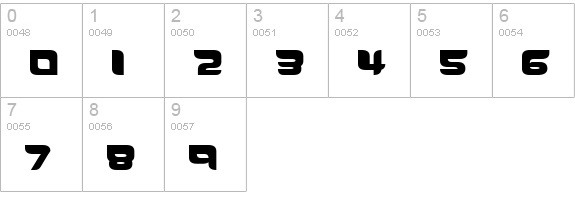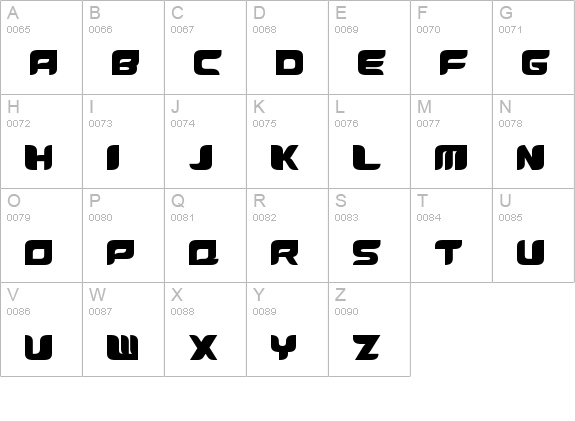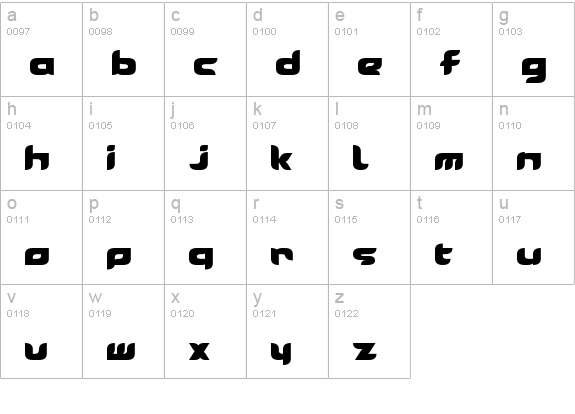
LEMON E font is a visually stunning and eye-catching typeface that adds a refreshing twist to any design project. With its sharp angles and bold lines, this font exudes a sense of modernity and sophistication. The letterforms are meticulously crafted to give a clean and crisp appearance, making it perfect for headlines, logos, and other display purposes. What sets LEMON E font apart is not just its striking design, but also the fact that it is available for free. Yes, you heard that right! This incredible font can be downloaded at no cost from FontsMarket.com, a trusted source for high-quality fonts. Whether you're a professional designer or an enthusiastic hobbyist, LEMON E font gives you the opportunity to elevate your creative projects without spending a dime. The versatility of LEMON E font is another reason to love it. It can seamlessly adapt to various design styles, from minimalist and sleek to bold and edgy. With its wide range of characters, including uppercase letters, lowercase letters, numerals, and punctuation marks, this font offers endless possibilities for customization and experimentation. The legibility of LEMON E font is also worth mentioning. Each letter is carefully balanced, ensuring easy readability even at smaller sizes. This makes it an excellent choice for body text in magazines, brochures, and websites. Enhance your designs with the vibrant and lively LEMON E font. Download it for free at FontsMarket.com and unleash your creativity today.